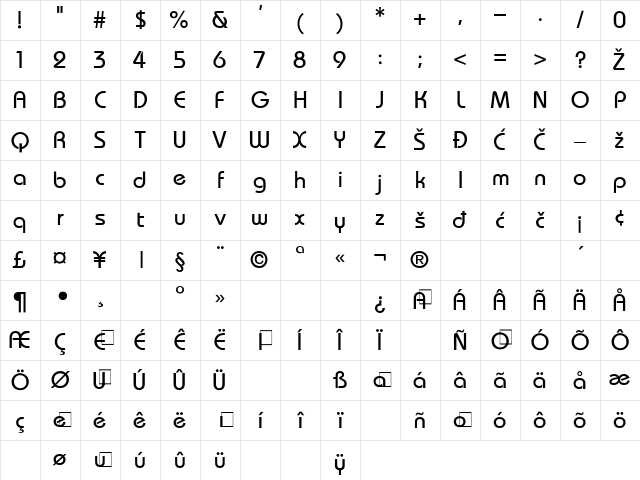
0Baham-N Regular
Design Context for 0Baham-N
0Baham-N is a composed and adaptable typeface that performs quietly and consistently across a wide range of design contexts.